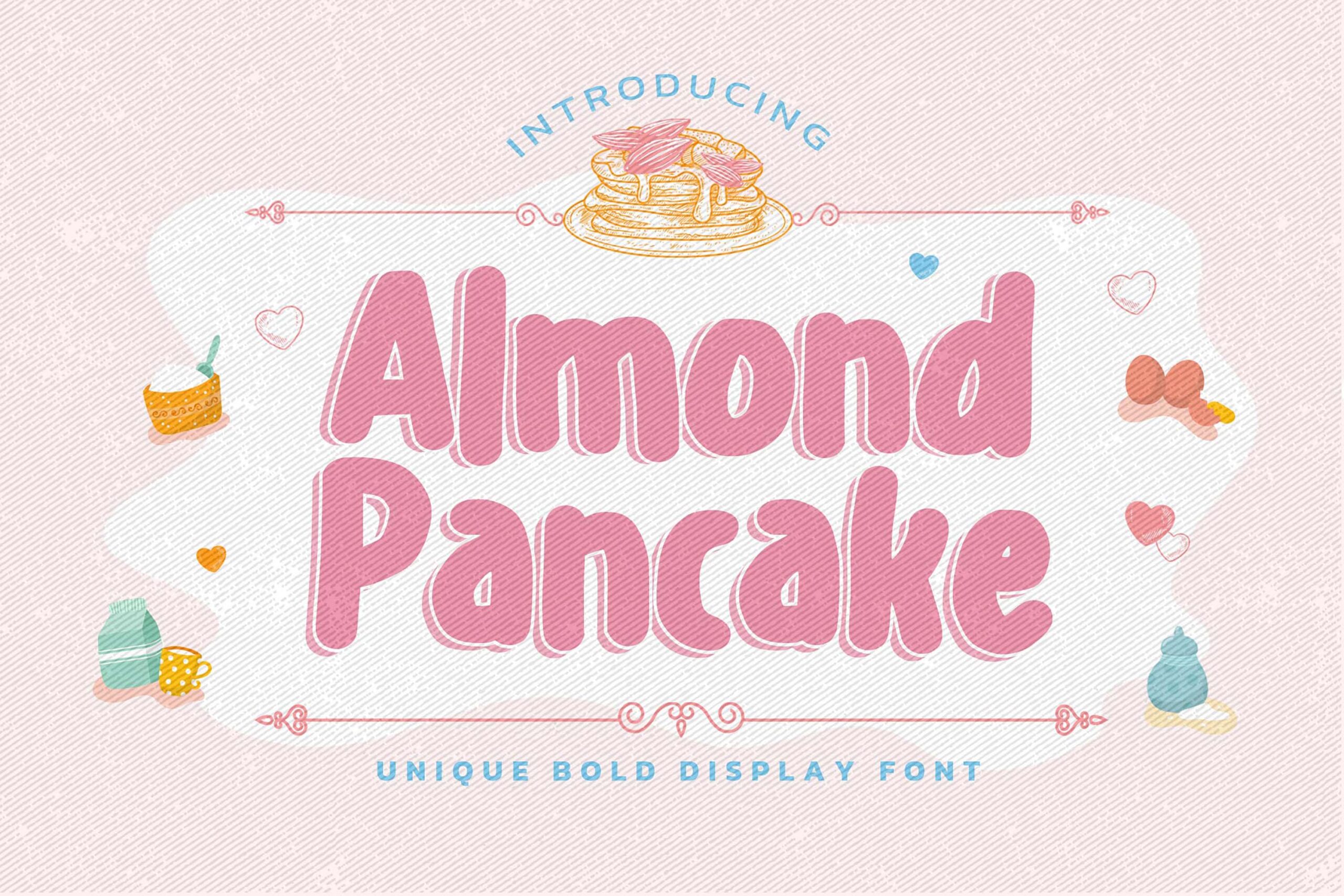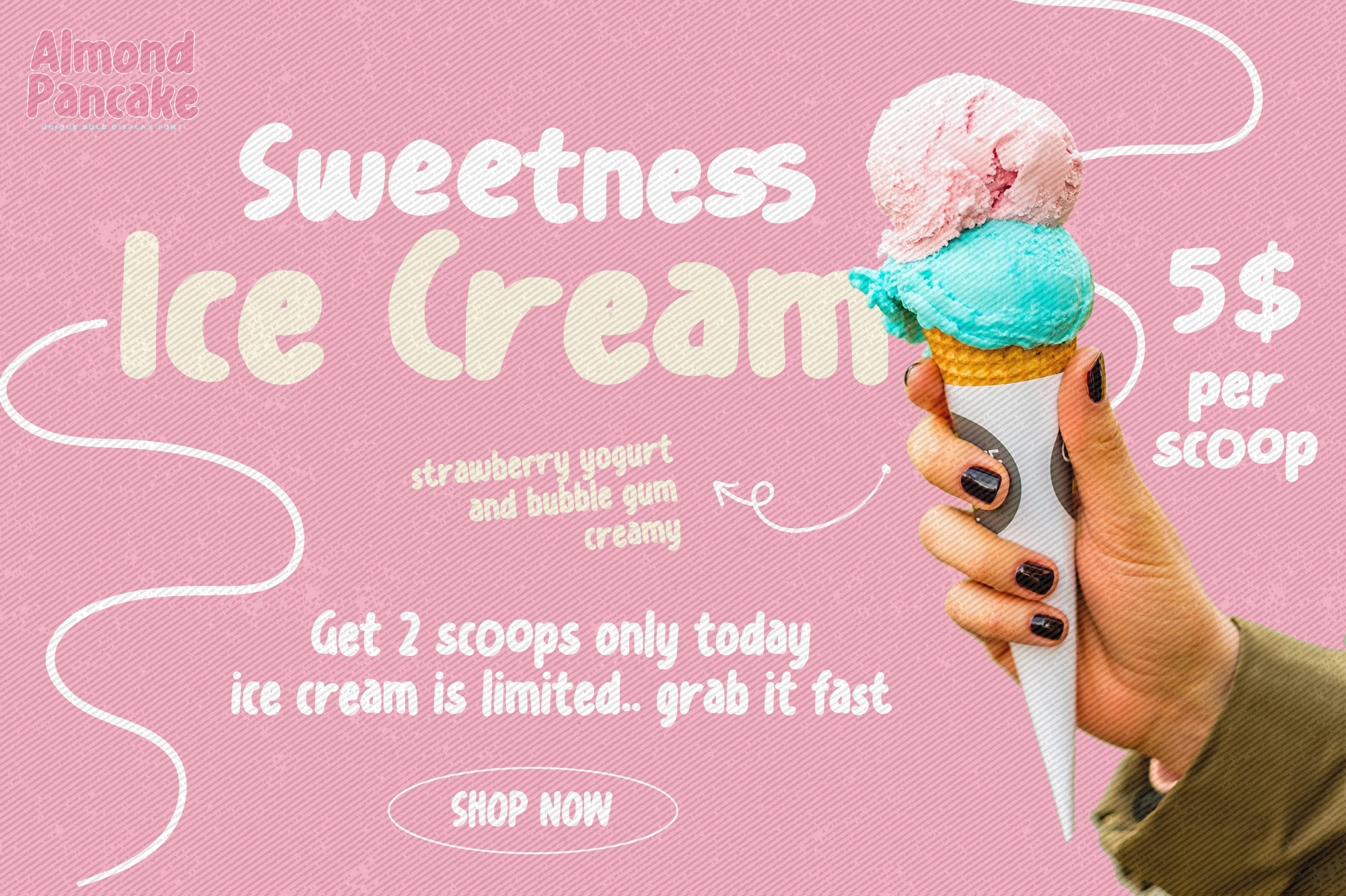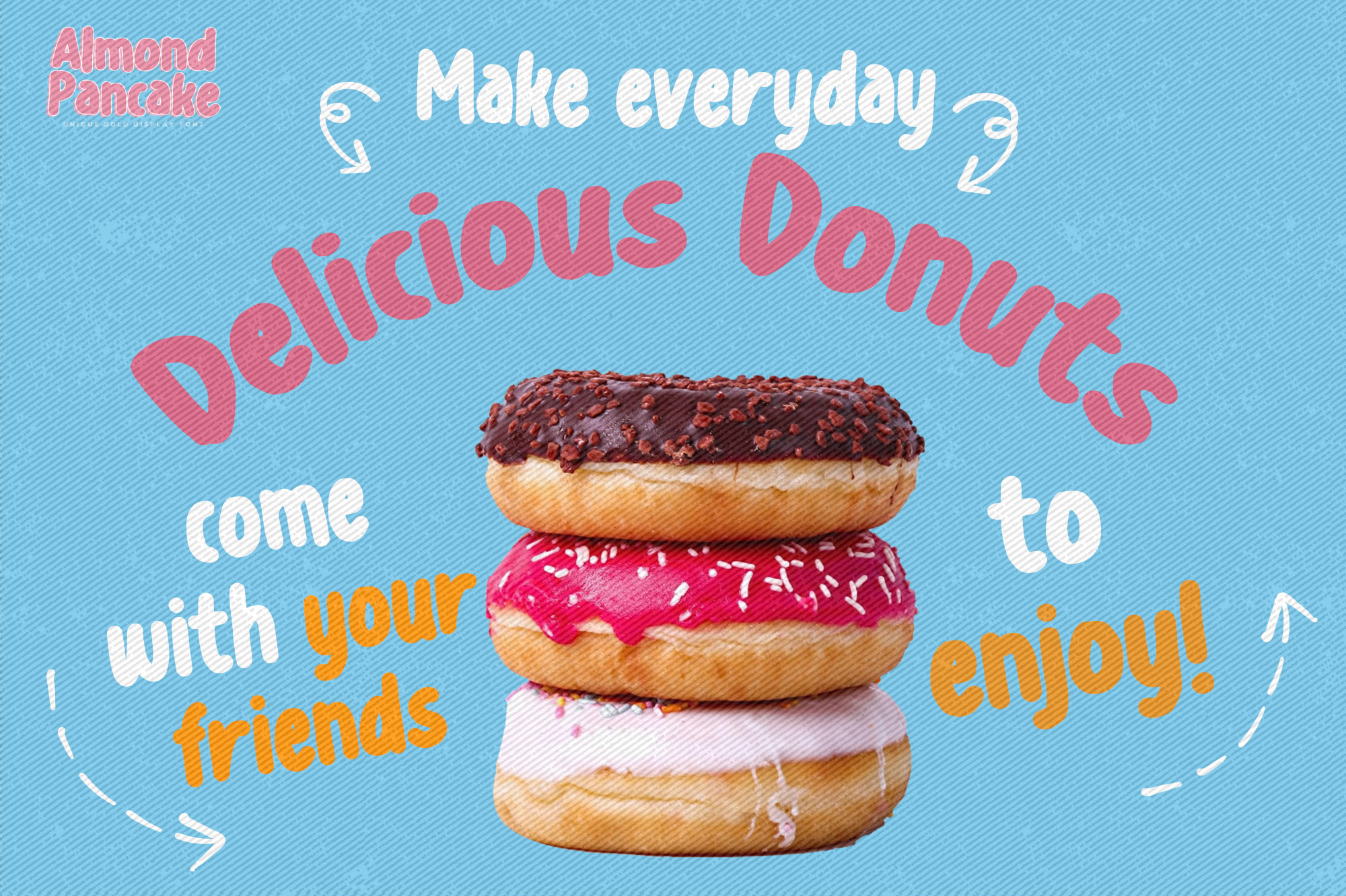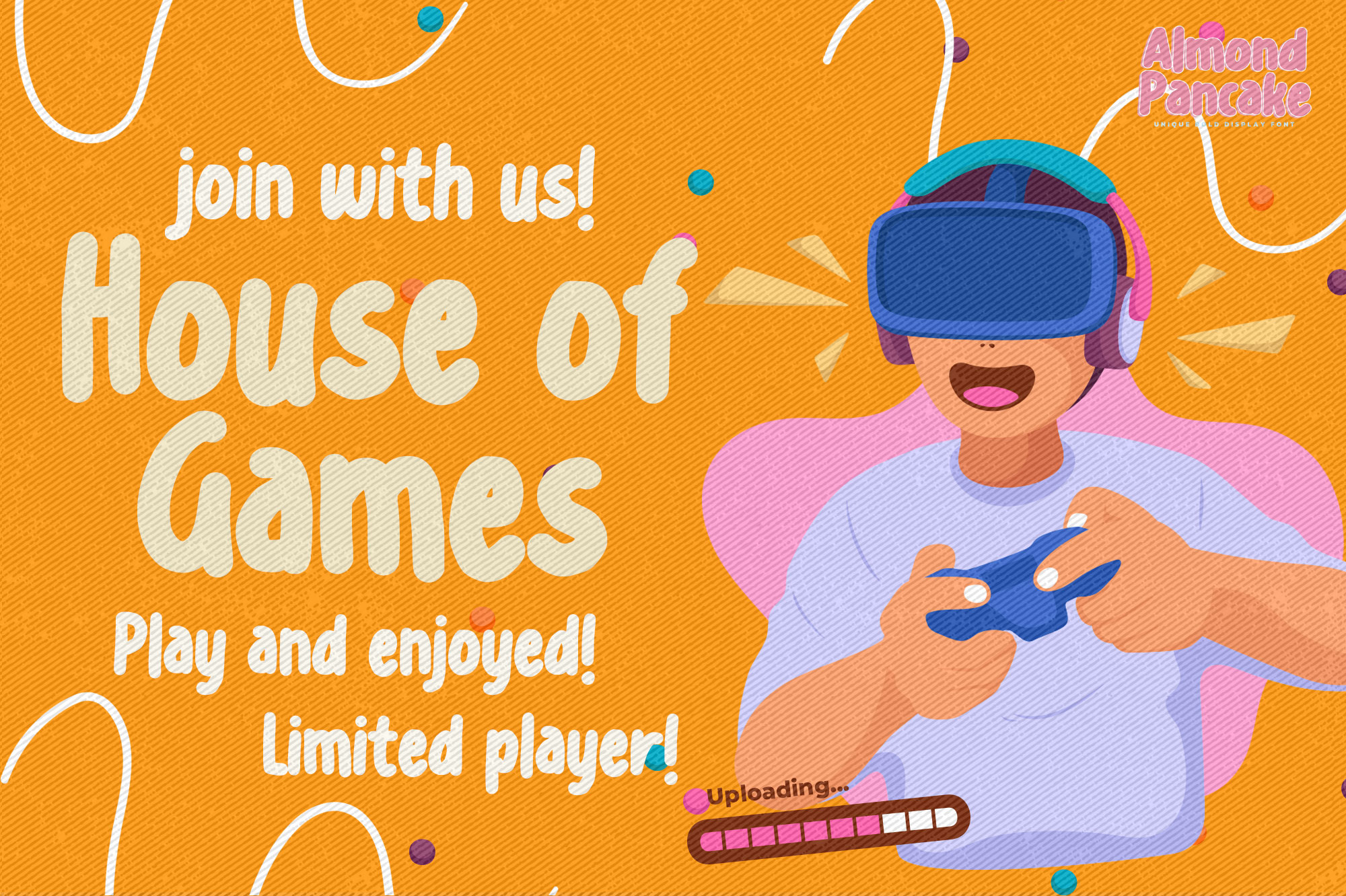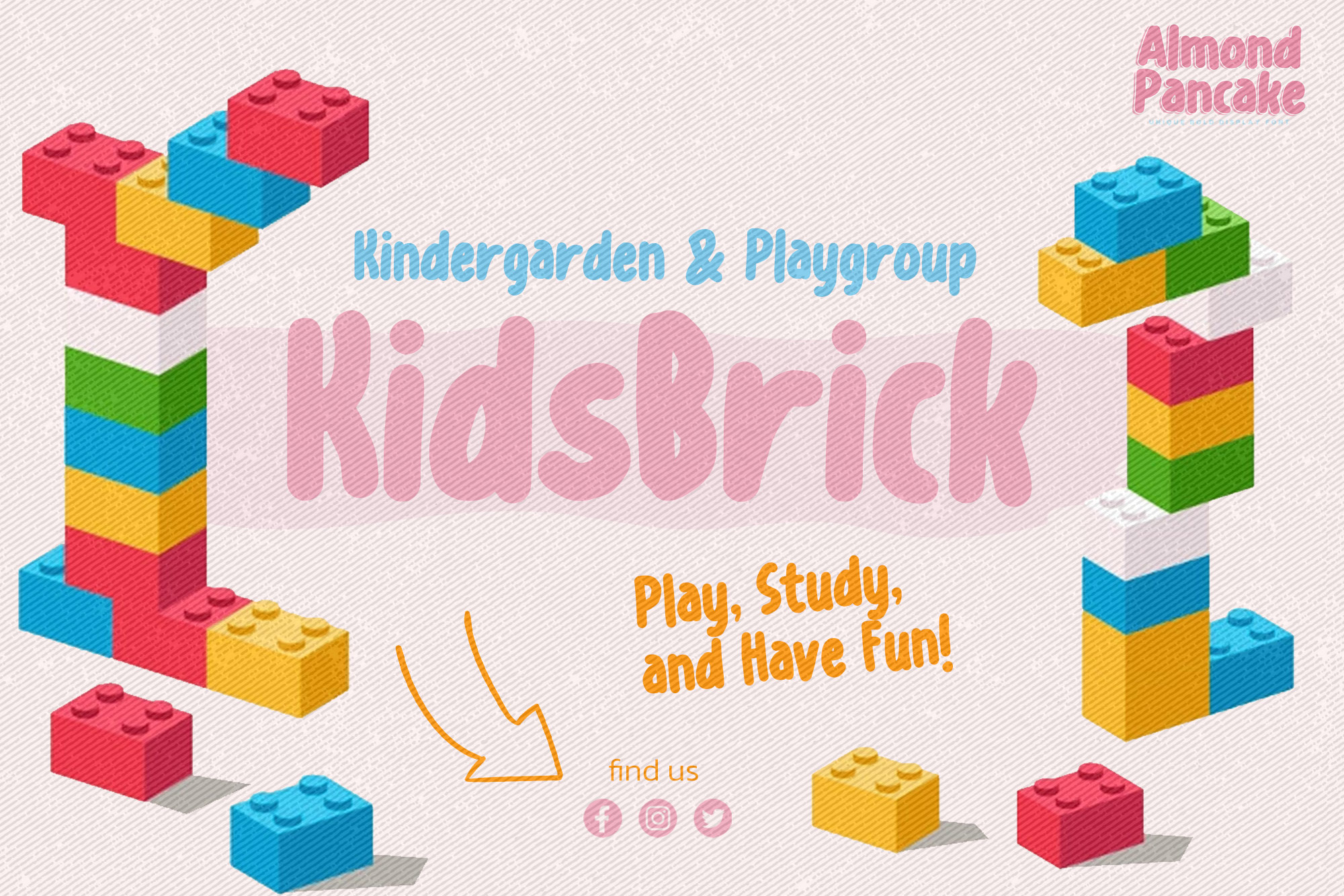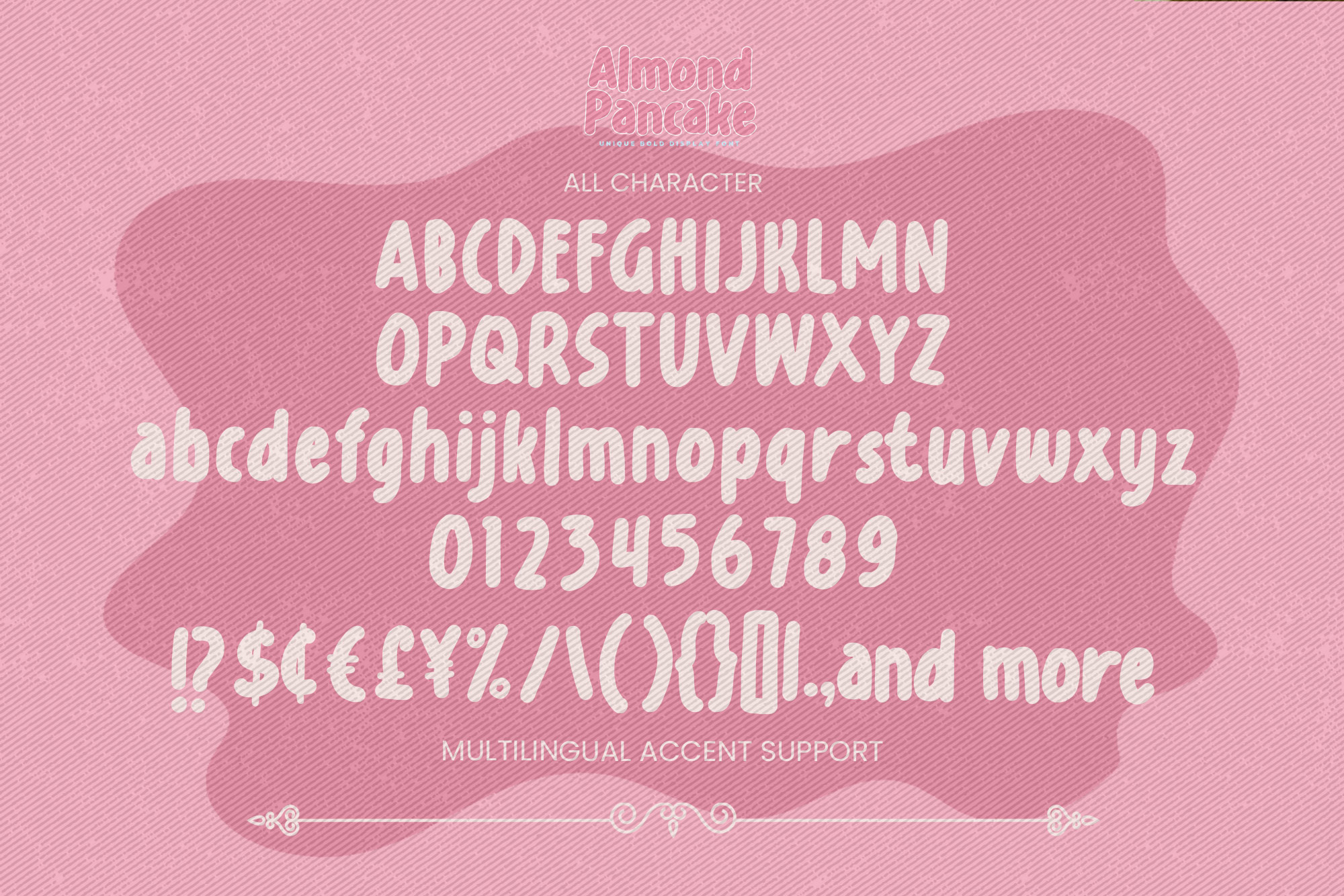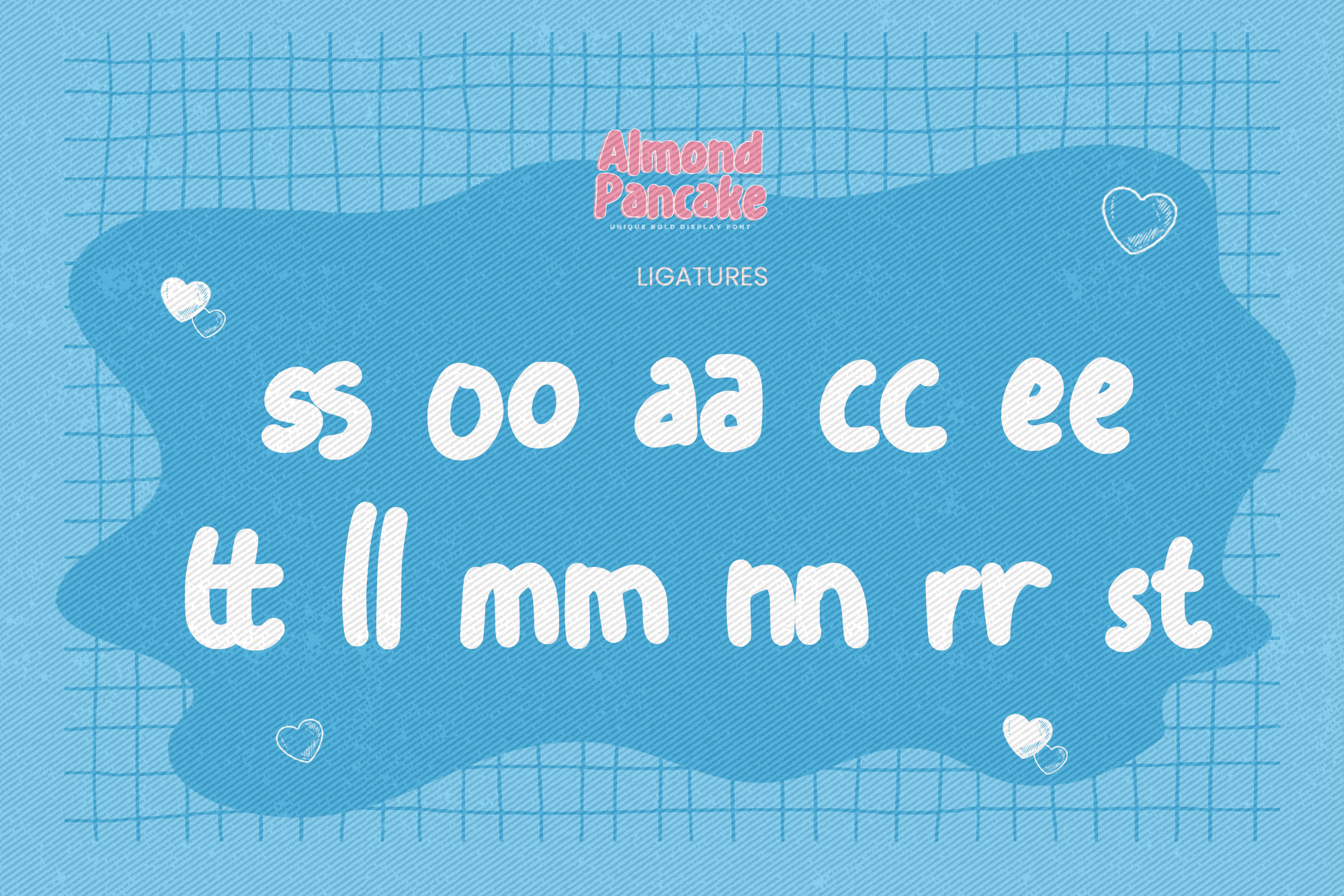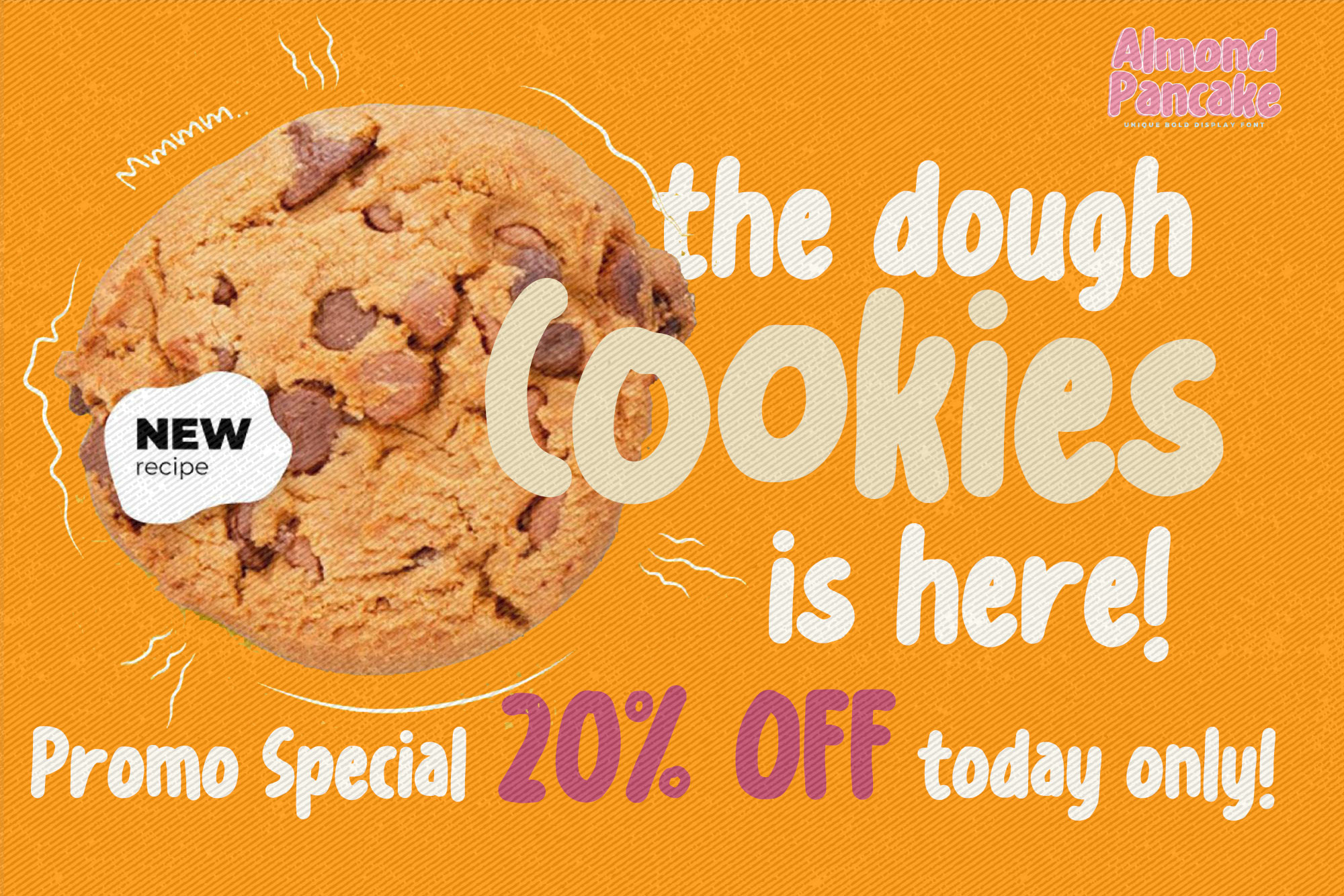
Almond Pancake – Unique Bold Display Font, modern style and dramatic movement that is written casually and quickly.
The best for labels, poster, project designs look modern, authentic and fun. It’s perfect for labels, quotes, posters, DIY projects, branding, packaging, greeting cards, websites, photography overlays, signs, scrapbooking, tags and so much more! That is why Almond Pancake has a textured, and authentic characteristic more natural look. You can activate Ligatures glyphs OpenType panel.